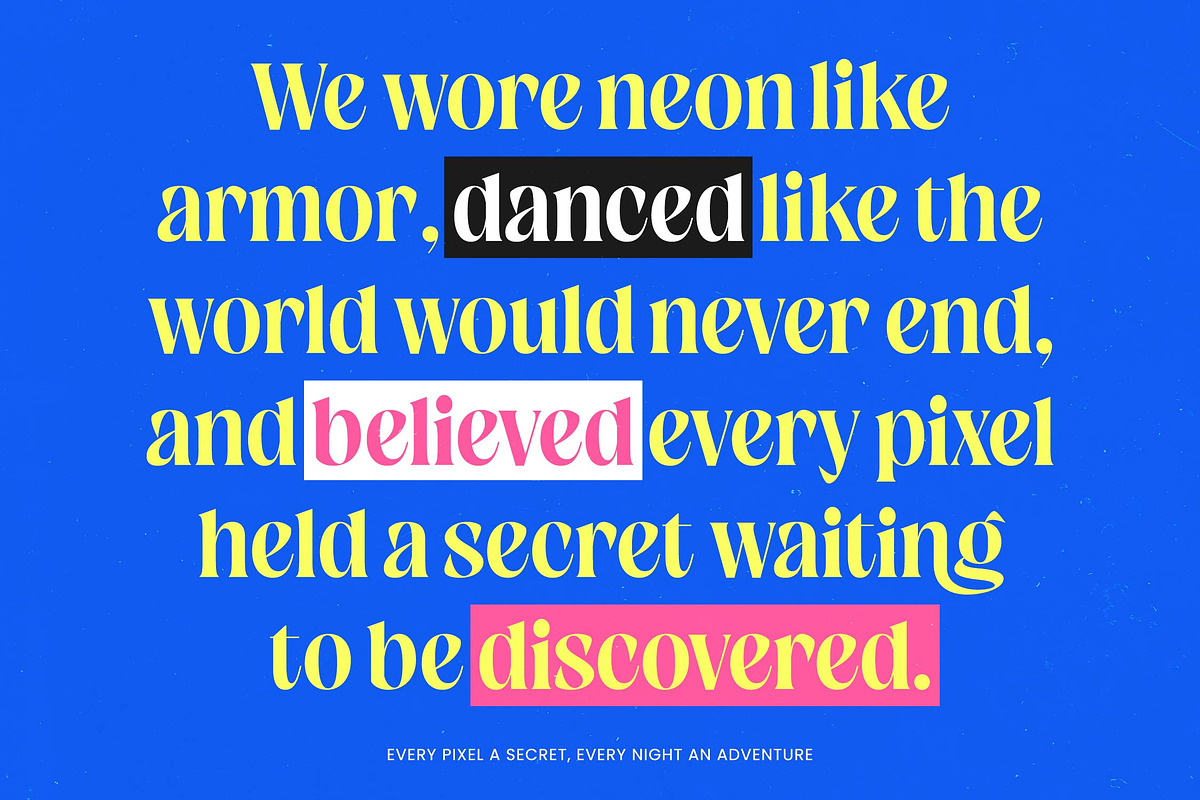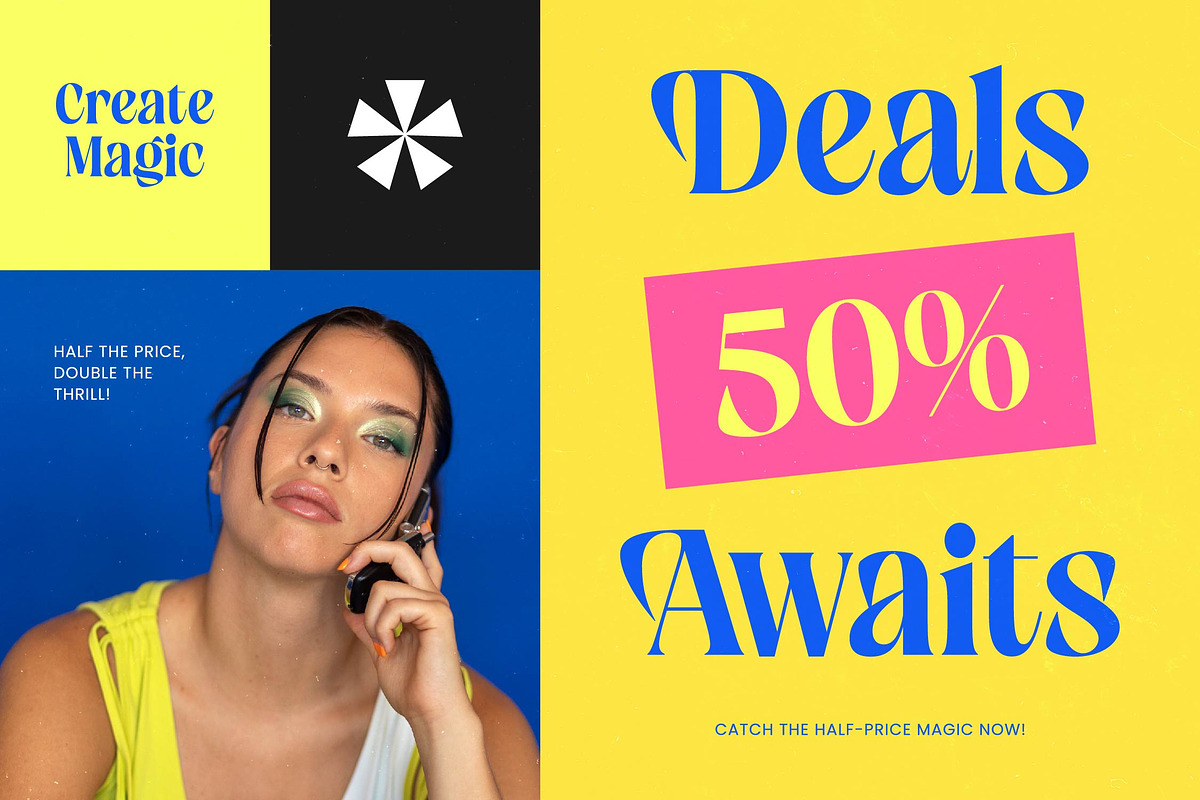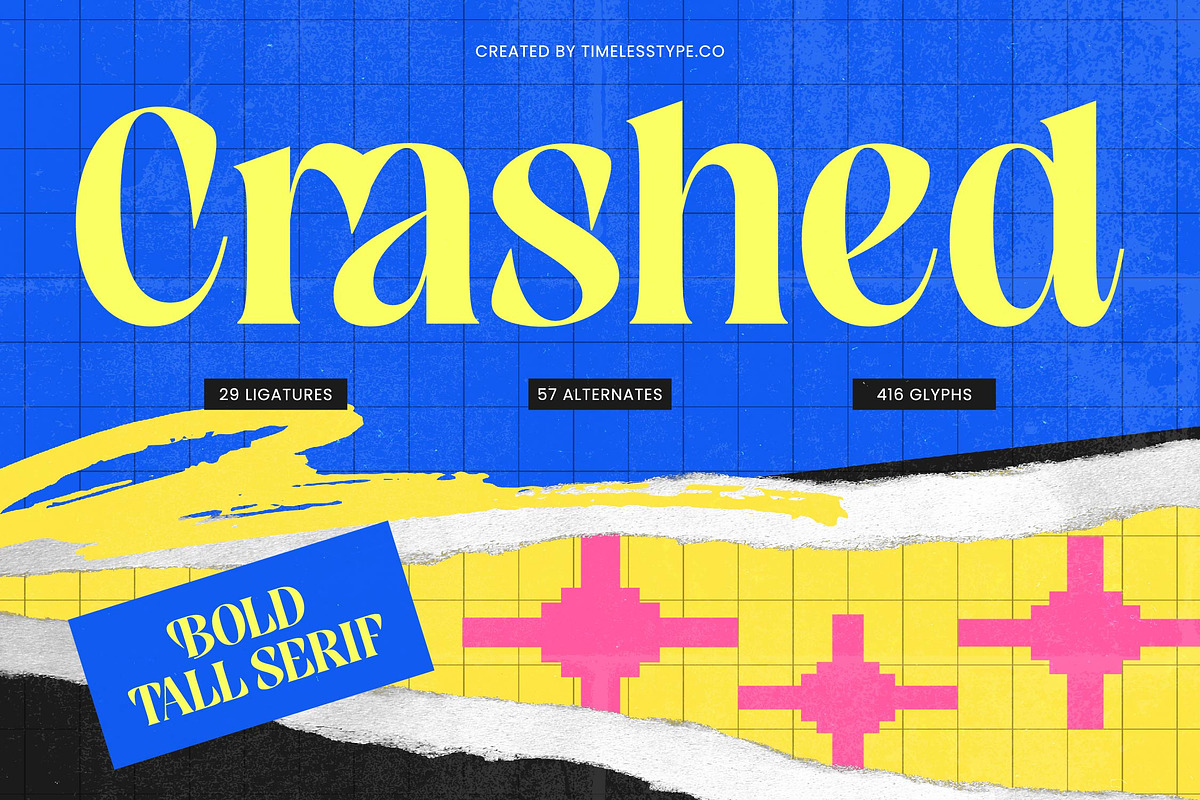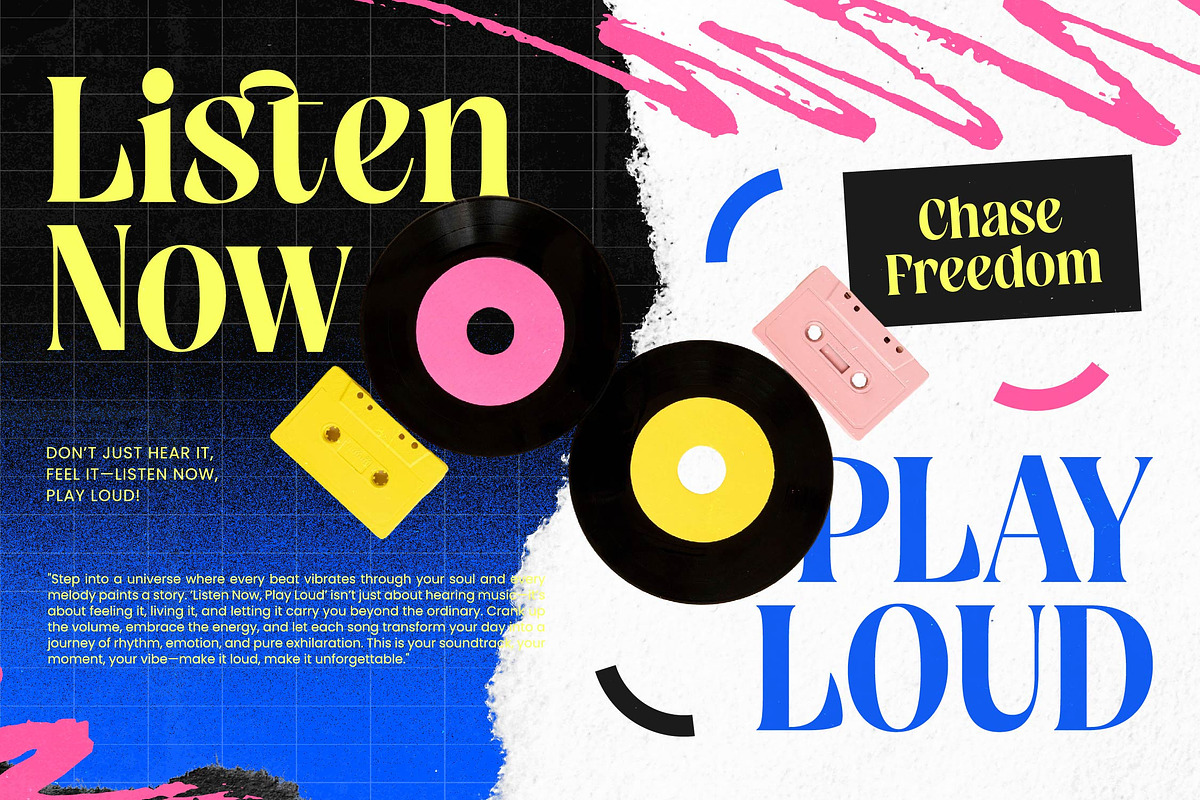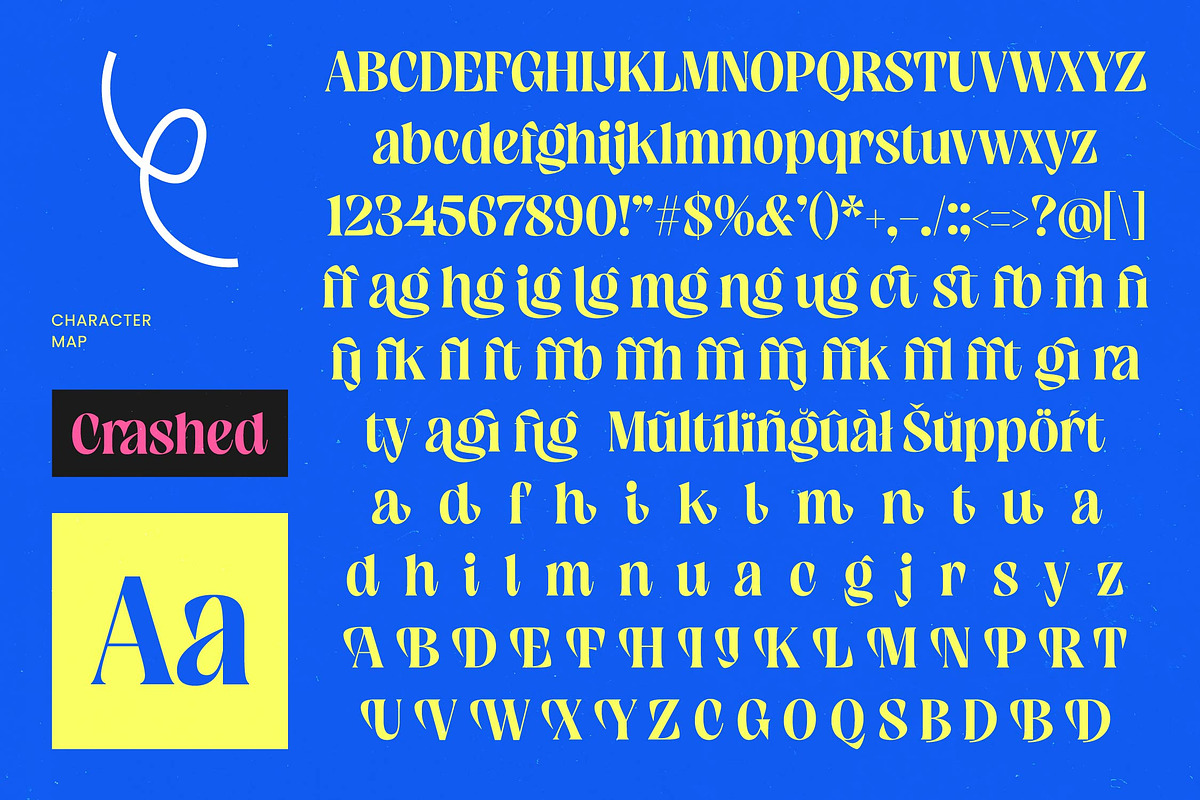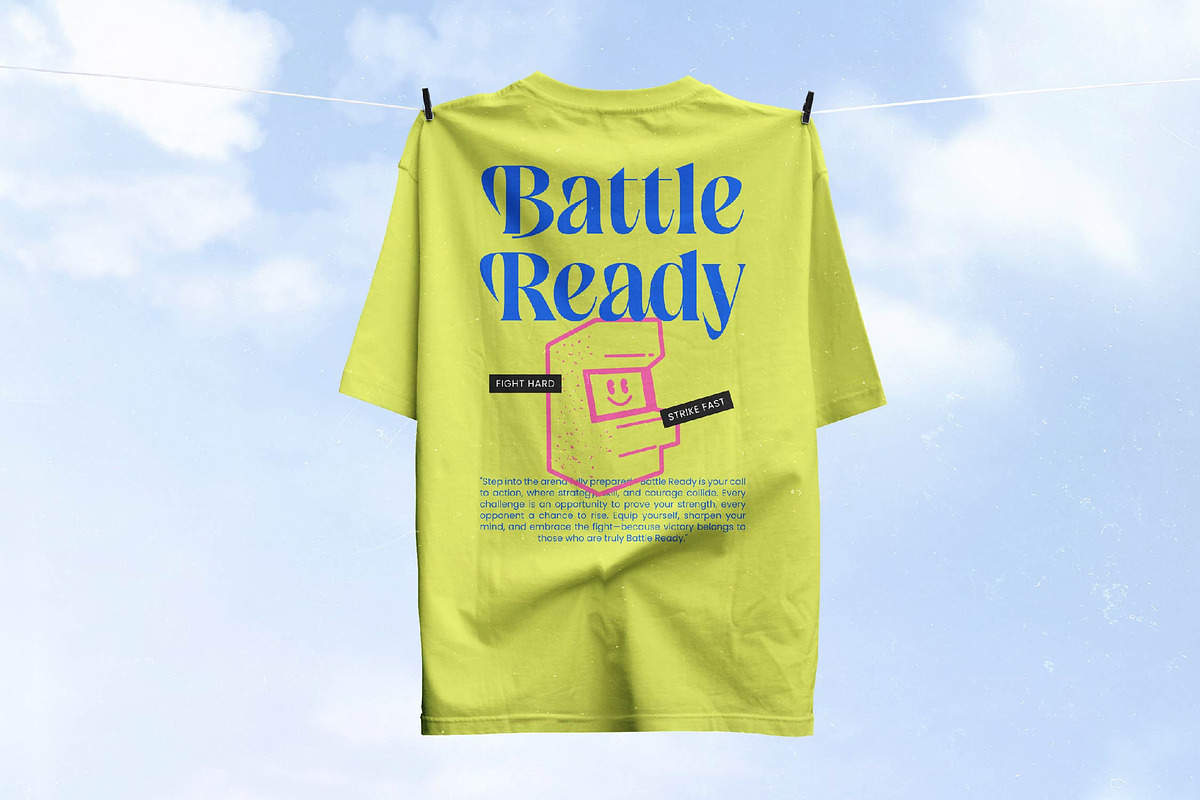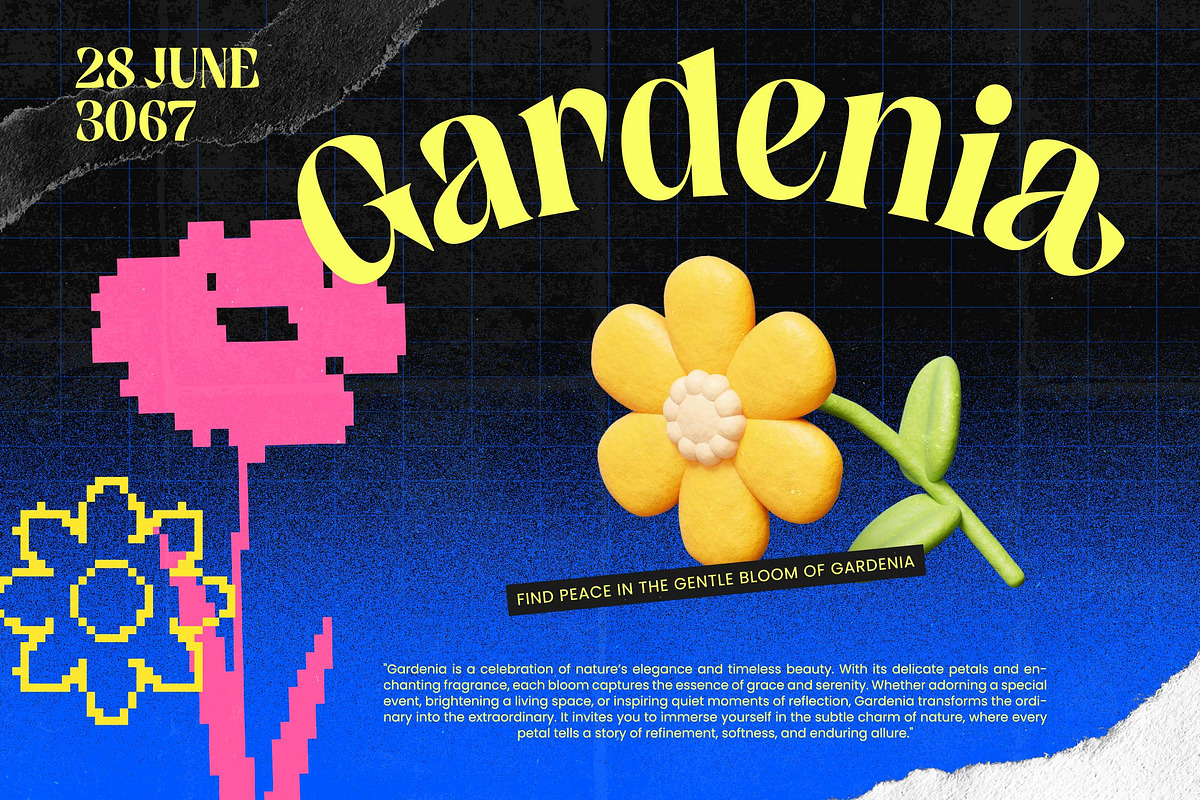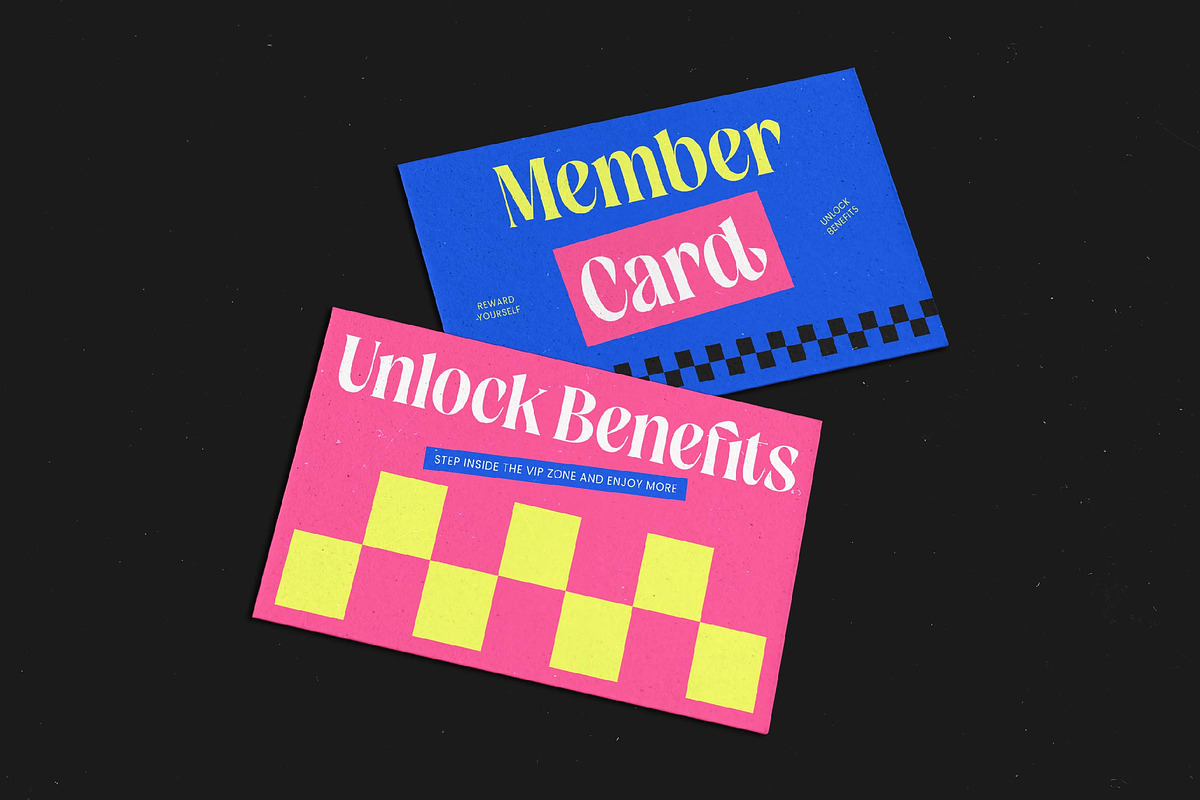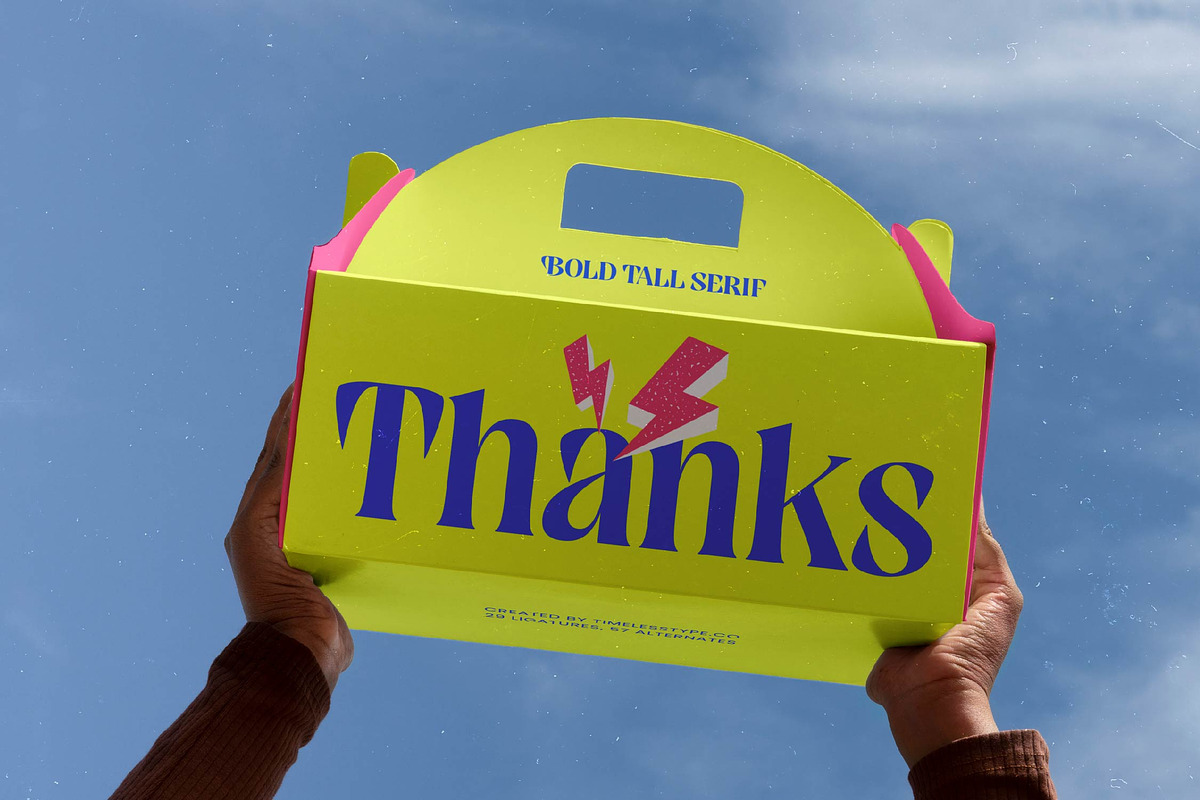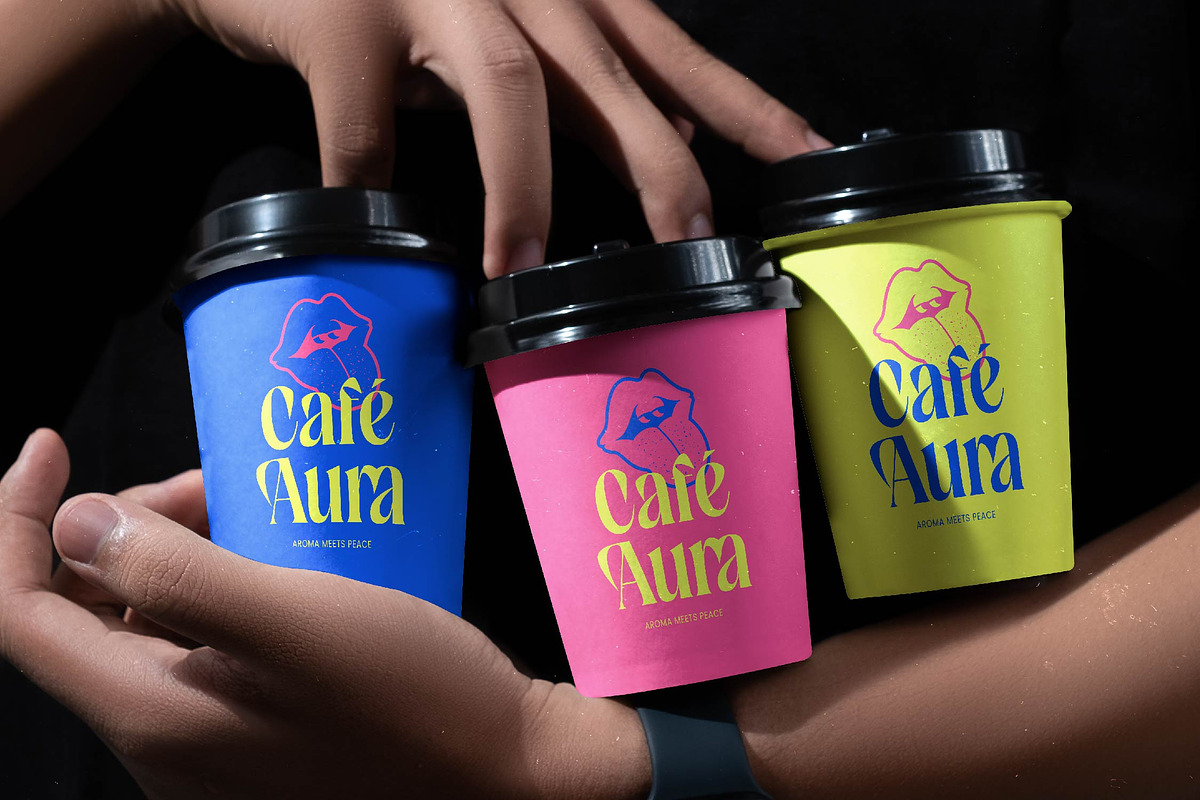
Crashed Bold Tall Serif
Crashed – Bold Tall Serif , Elevate your design identity with the commanding presence of Crashed – Bold Tall Serif, a masterpiece of high-contrast typography. This premium serif font demands attention through its elongated letterforms and bold strokes, making it an essential asset for a modern aesthetic. By blending classic serif traditions with a contemporary edge, Crashed – Bold Tall Serif ensures your headlines remain unforgettable and authoritative in any professional setting.
Perfectly engineered for high-impact storytelling, Crashed – Bold Tall Serif excels in luxury branding, high-end packaging, and editorial design where visual impact is paramount. Whether you are crafting a fashion magazine or a premium product label, this typeface is perfect for creating a high-fashion look. Its refined silhouette allows it to shine in large-scale displays, providing a versatile solution for any high-end project.
With its extensive multilingual support, Crashed – Bold Tall Serif adapts seamlessly across global markets, making it incredibly versatile for international projects. Boasting a set of 416 glyphs, this font ensures your message is communicated stylishly in multiple languages. This global adaptability makes Crashed – Bold Tall Serif a strategic investment for global brands looking to maintain a consistent visual identity.
Unlock limitless creative potential with the sophisticated OpenType features found in Crashed – Bold Tall Serif, including 29 unique ligatures and 57 stylistic alternates for unparalleled creative flexibility. These options allow you to create bespoke designs that feel exclusive and handcrafted. Choose Crashed – Bold Tall Serif to inject professionalism and flair into your creative portfolio, ensuring your work stands out in a crowded market.